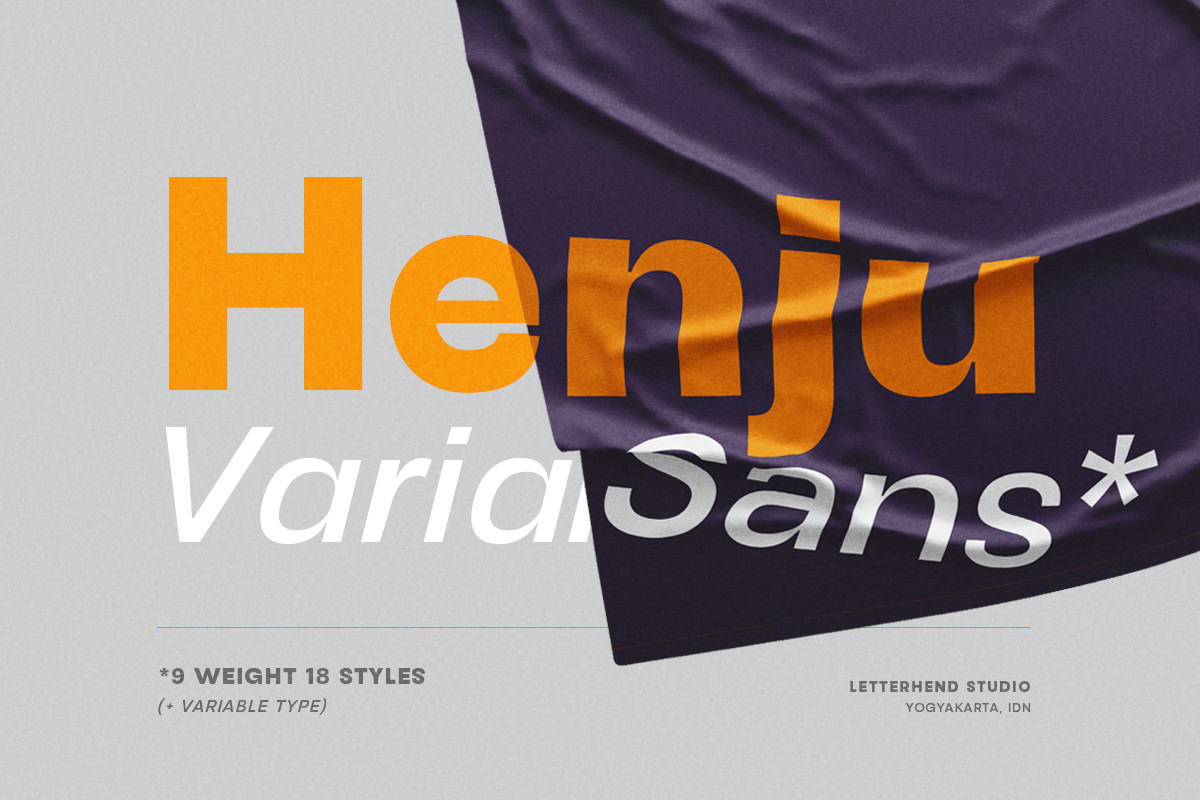
Henju Sans Font
Perfect for branding, headlines, web design, packaging, and editorial use.
The Henju Sans Font excites designers with its clean, geometric sans-serif style that balances modern simplicity with versatility.
The Henju Sans Font Free Download is a highly legible typeface featuring smooth curves and balanced proportions, making it ideal for tech branding, user interfaces, and contemporary print materials.
One of the key strengths of Henju Sans Font is its minimalist yet distinctive appearance, which allows your designs to stay clear and impactful across various platforms.
In branding, Henju Sans communicates professionalism, clarity, and modernity. It pairs well with sleek layouts, monochrome palettes, and clean visuals to create polished and effective designs.
For digital projects, this font enhances website headers, mobile apps, social media graphics, and promotional materials, ensuring your message is delivered with precision and style.